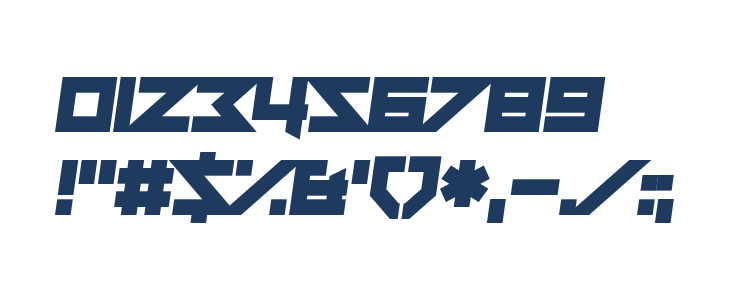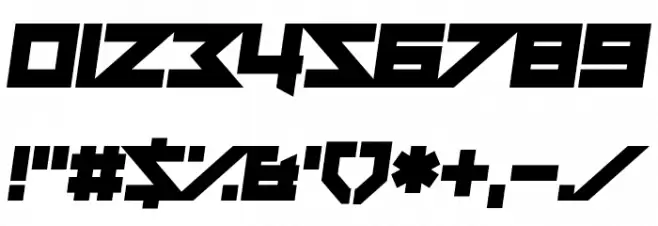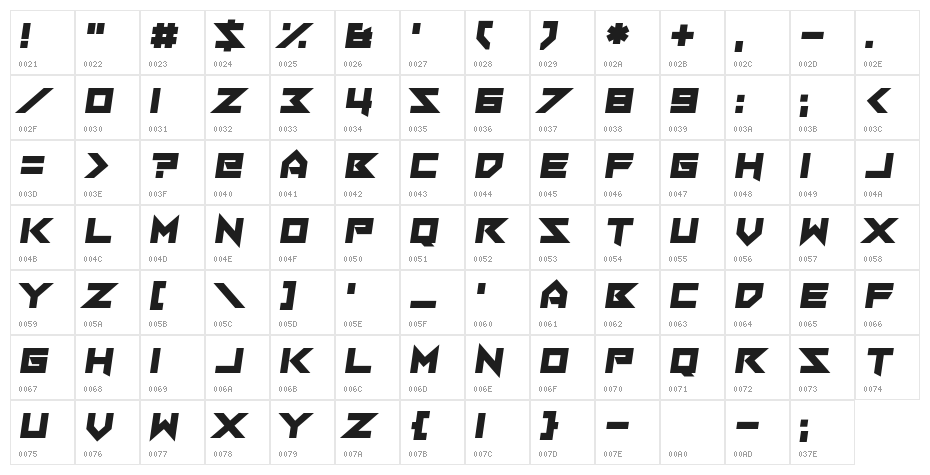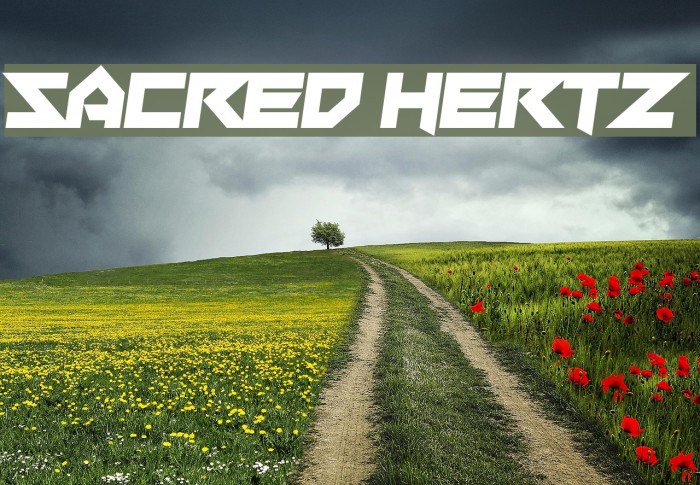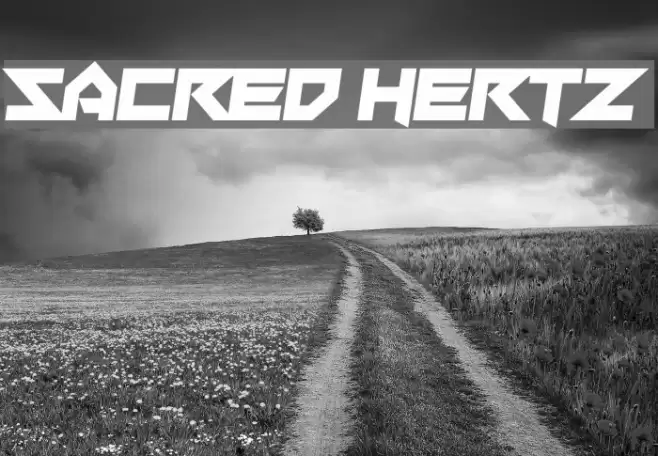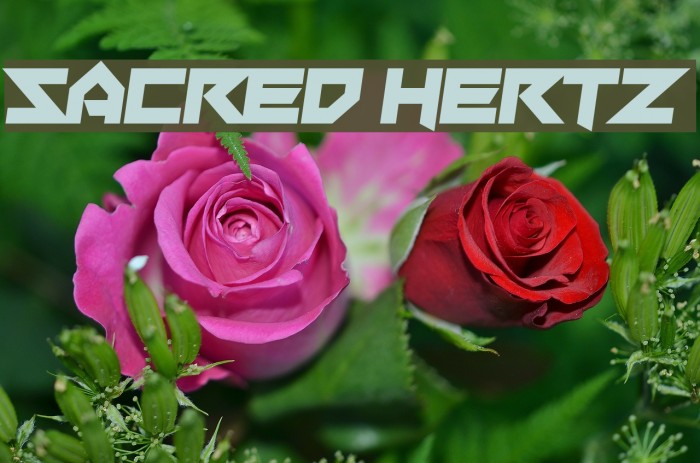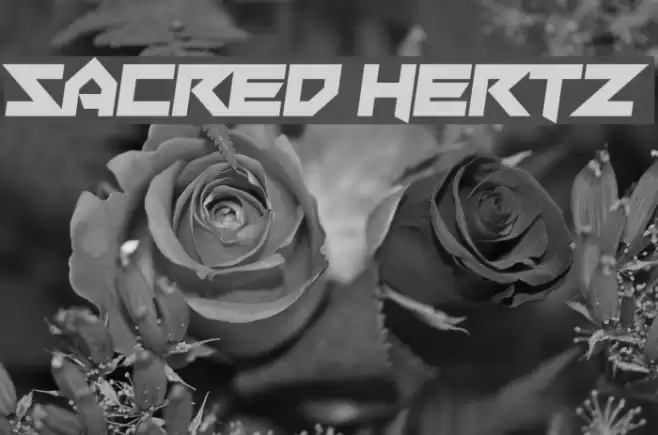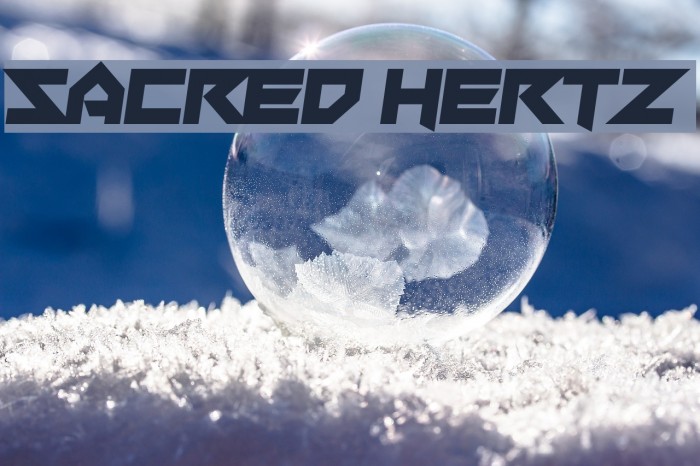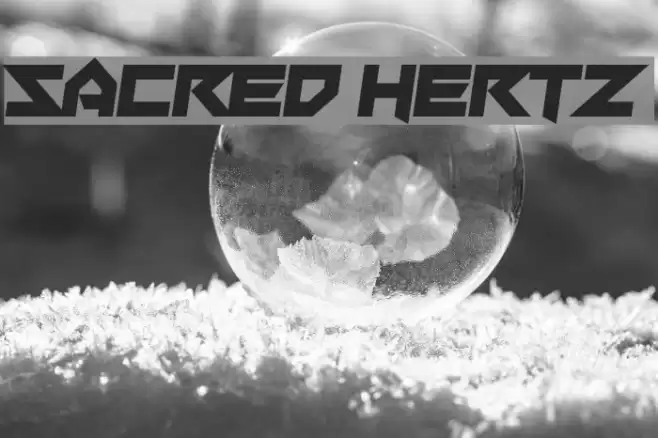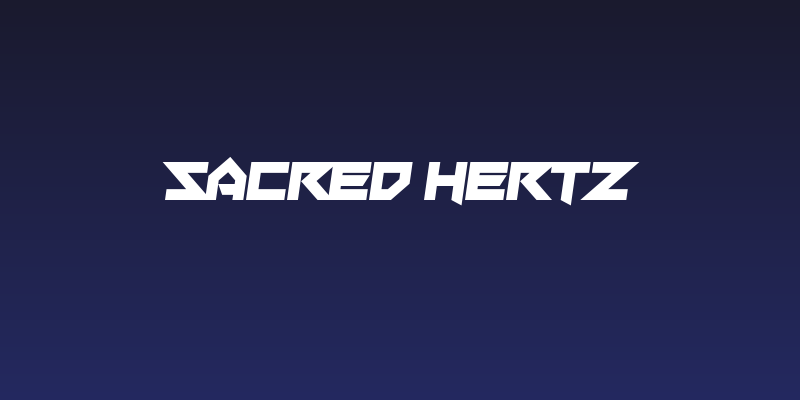
Sacred Hertz Font
Sacred Hertz Description
This font features a bold, angular design with a futuristic and geometric aesthetic. Each character is crafted with sharp edges and a dynamic slant, creating a sense of movement and energy. The uppercase and lowercase letters maintain a consistent style, emphasizing the font's cohesive appearance. Numbers and special characters are designed to match the angular theme, ensuring uniformity across all glyphs. The font's unique style makes it stand out, ideal for projects that require a modern and edgy look.
| Proposed Projects | Ideal for sci-fi themed projects, video game titles, tech branding, and modern posters. |